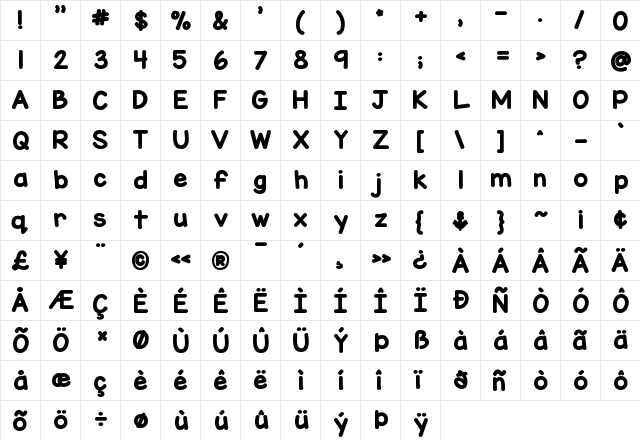
KG Miss Kindy Marker Regular
| Foundry | Kimberly Geswein |
| Designer | Kimberly Geswein |
Design Context for KG Miss Kindy Marker Typeface
KG Miss Kindy Marker is a composed and adaptable typeface that performs quietly and consistently across a wide range of design contexts.